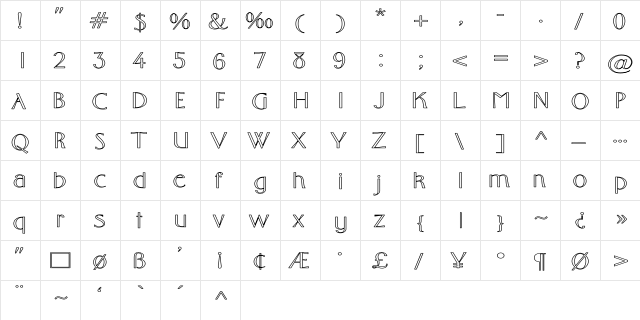
Middleton-Light HW Regular
Design Context for Middleton-Light HW Typeface
Middleton-Light HW is a composed and adaptable typeface that performs quietly and consistently across a wide range of design contexts. The delicate stroke weight brings airiness and refinement to layouts.